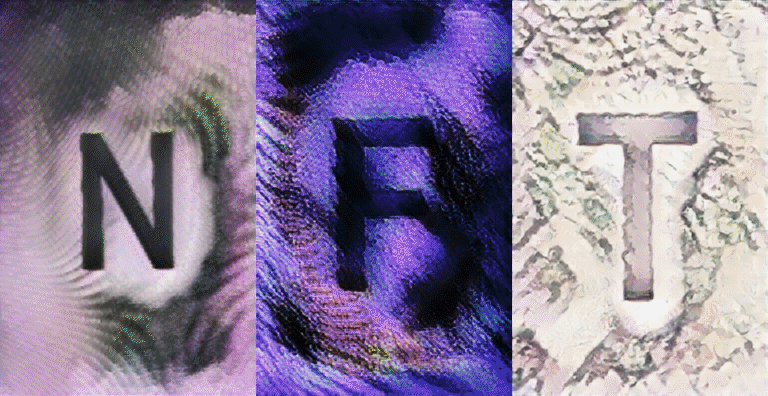
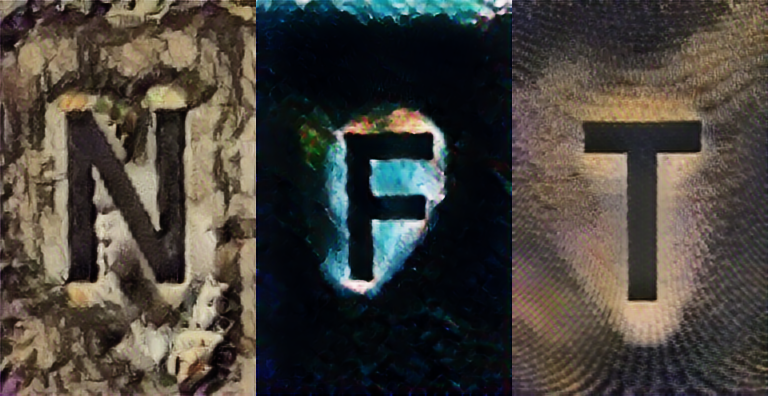
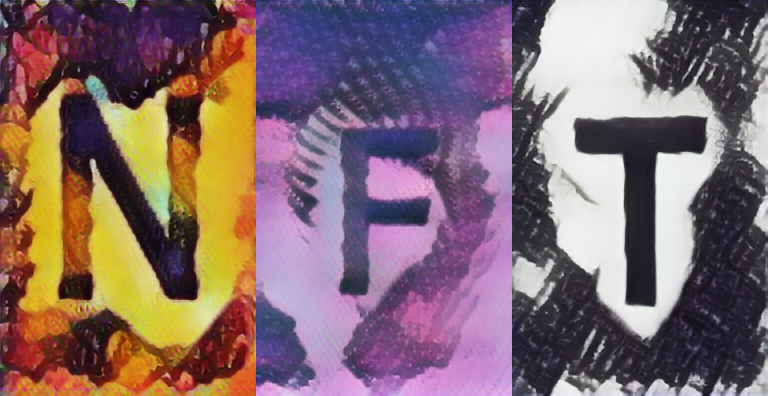
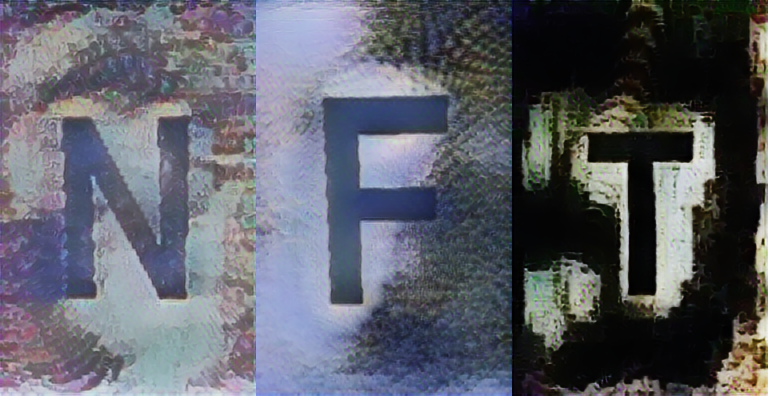
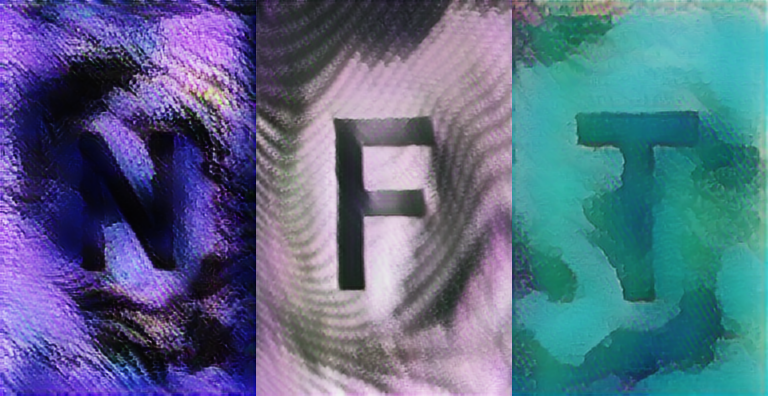
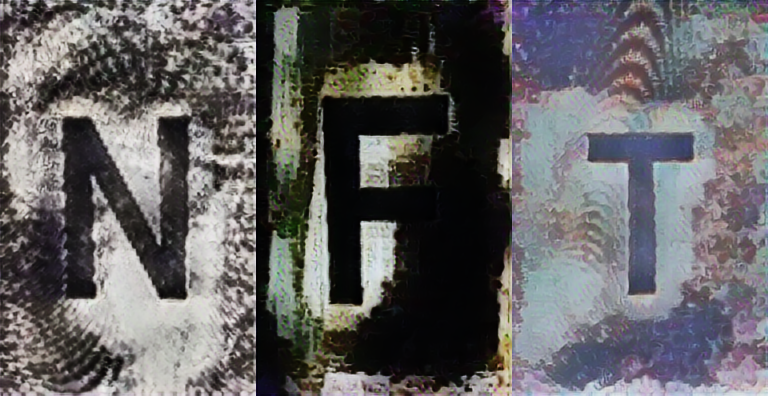
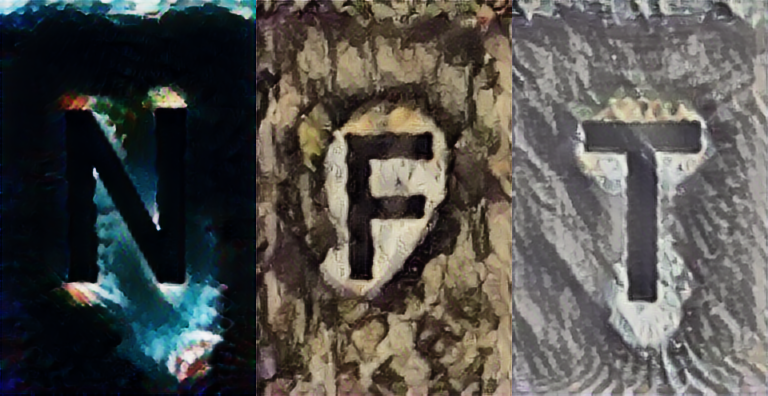
No. 1 of the Abbreviation Deviation series: Crypto Deviation—NFT.
Exploring meaning and emotion derived from language and image that in and of itself isn’t real.
Manipulated neural style transfer stop motion animation.